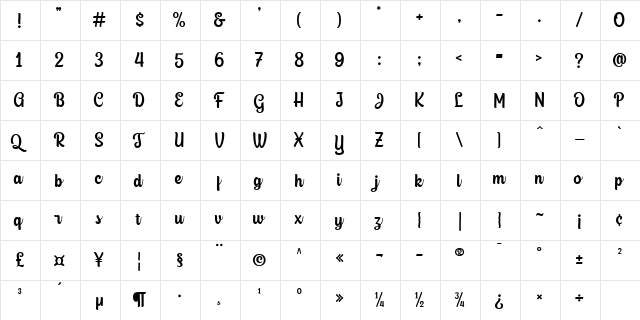
Glasgow Script Regular
Design Context for Glasgow Script Typeface
Glasgow Script flows with the natural rhythm of handwritten lettering, making it ideal for designs that call for warmth and personal expression.
Font Pairing: Combine Glasgow Script with a simple geometric sans for maximum contrast — the tension between flowing curves and clean structure is a classic typographic pairing.
Pro Tip: Use Glasgow Script for short runs of text — names, titles, or taglines. Extended body copy in script faces tires the eye quickly.